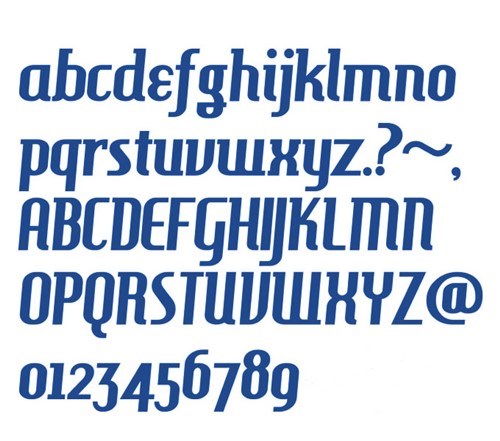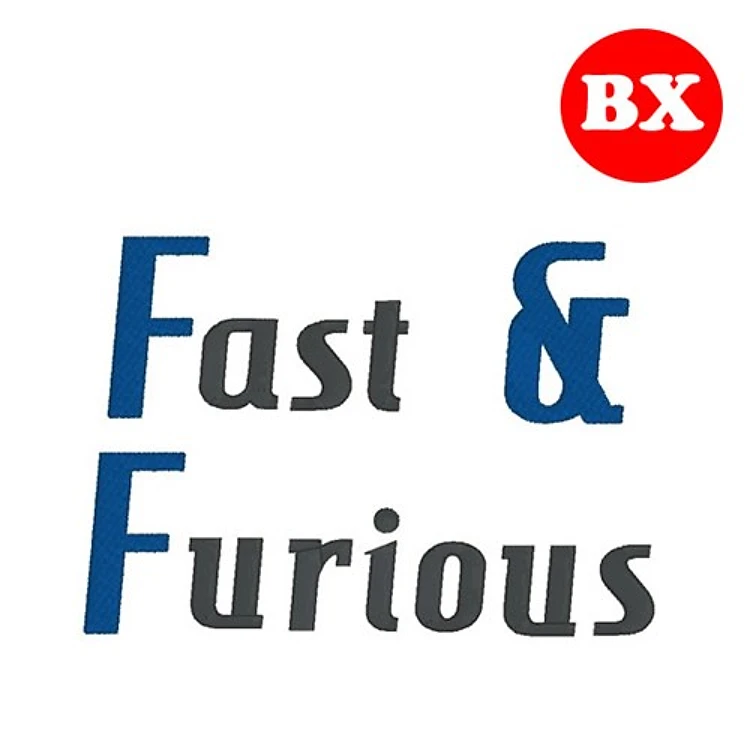
Fast & Furious Embrilliance Embroidery Font - Bold Block Style - BX font by Unicorn Creatives and other embroidery fonts available at EmbroideryDesigns.com.
Unicorn Creatives is happy to present Fast & Furious Embrilliance Embroidery Font - Bold Block Style - BX font machine embroidery font which has Bold block style machine embroidery font ideal for decorating jackets and bags. The vibrant 'Fast & Furious' design is showcased in blue and gray. Available in Embrilliance format. included. If you would like to view more embroidery fonts and alphabets please search our embroidery fonts page.
Fast & Furious Embrilliance Embroidery Font - Bold Block Style - BX font